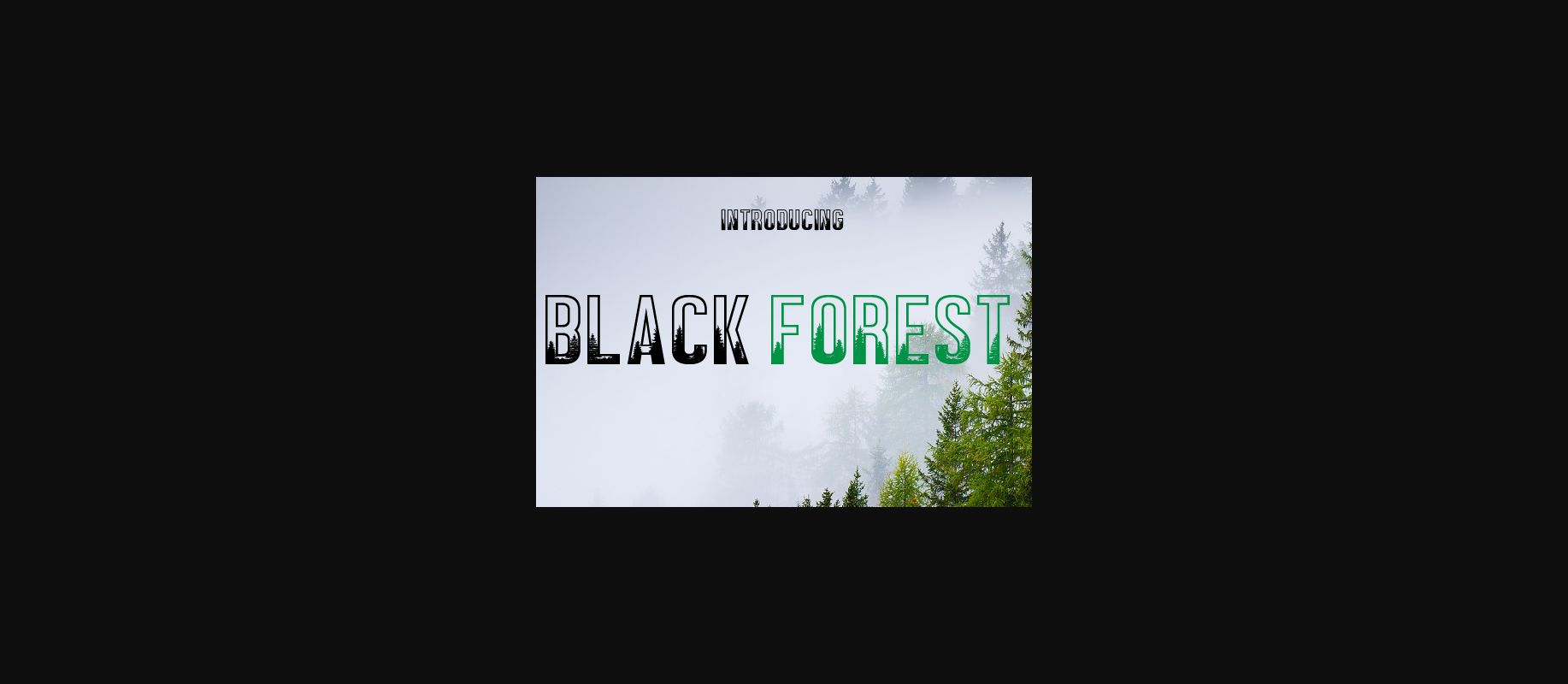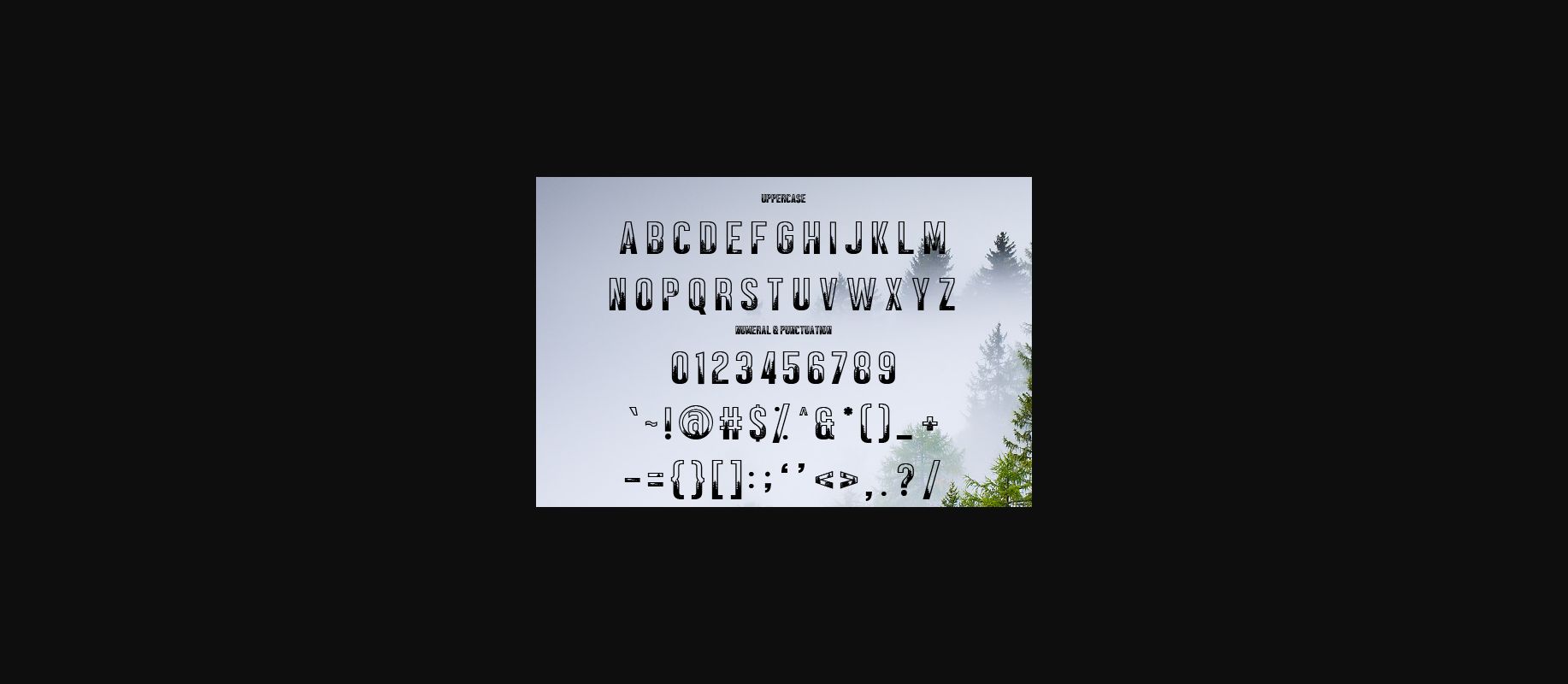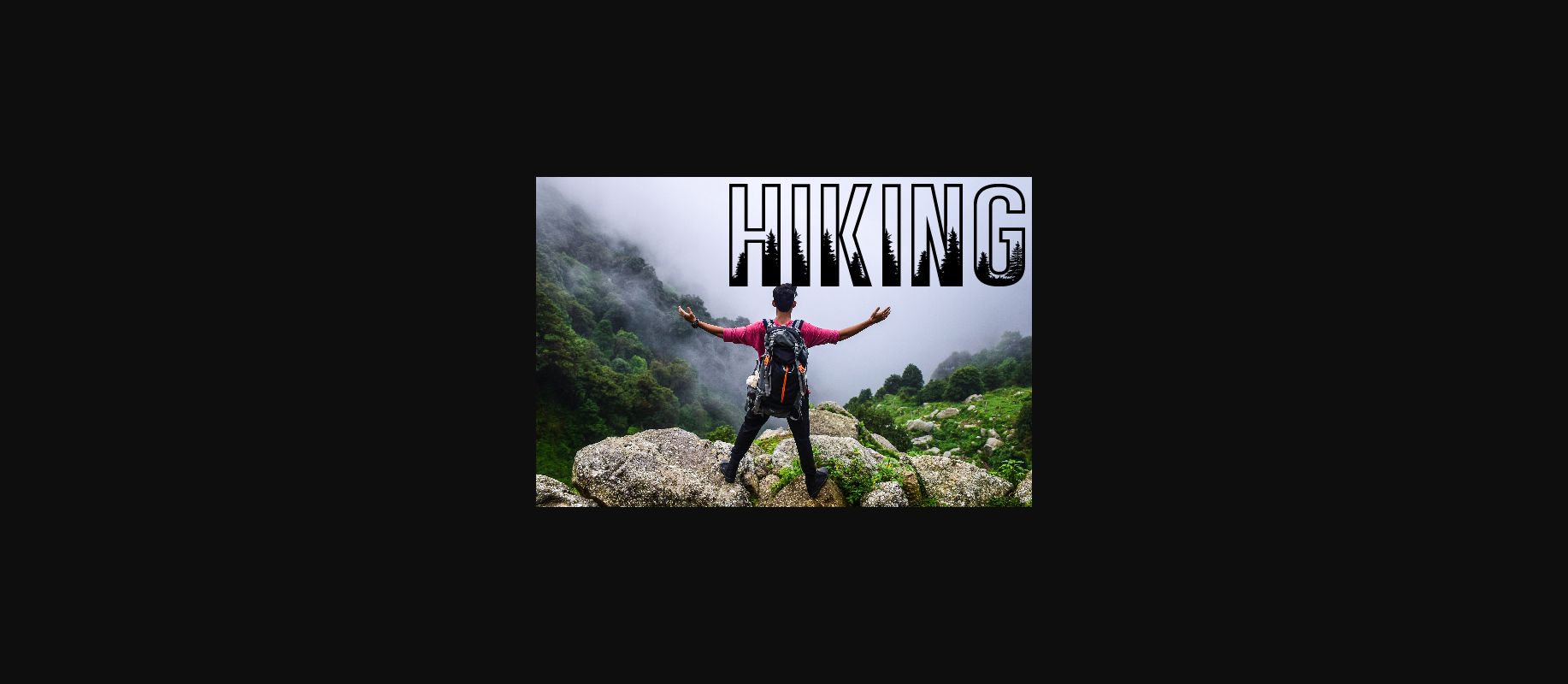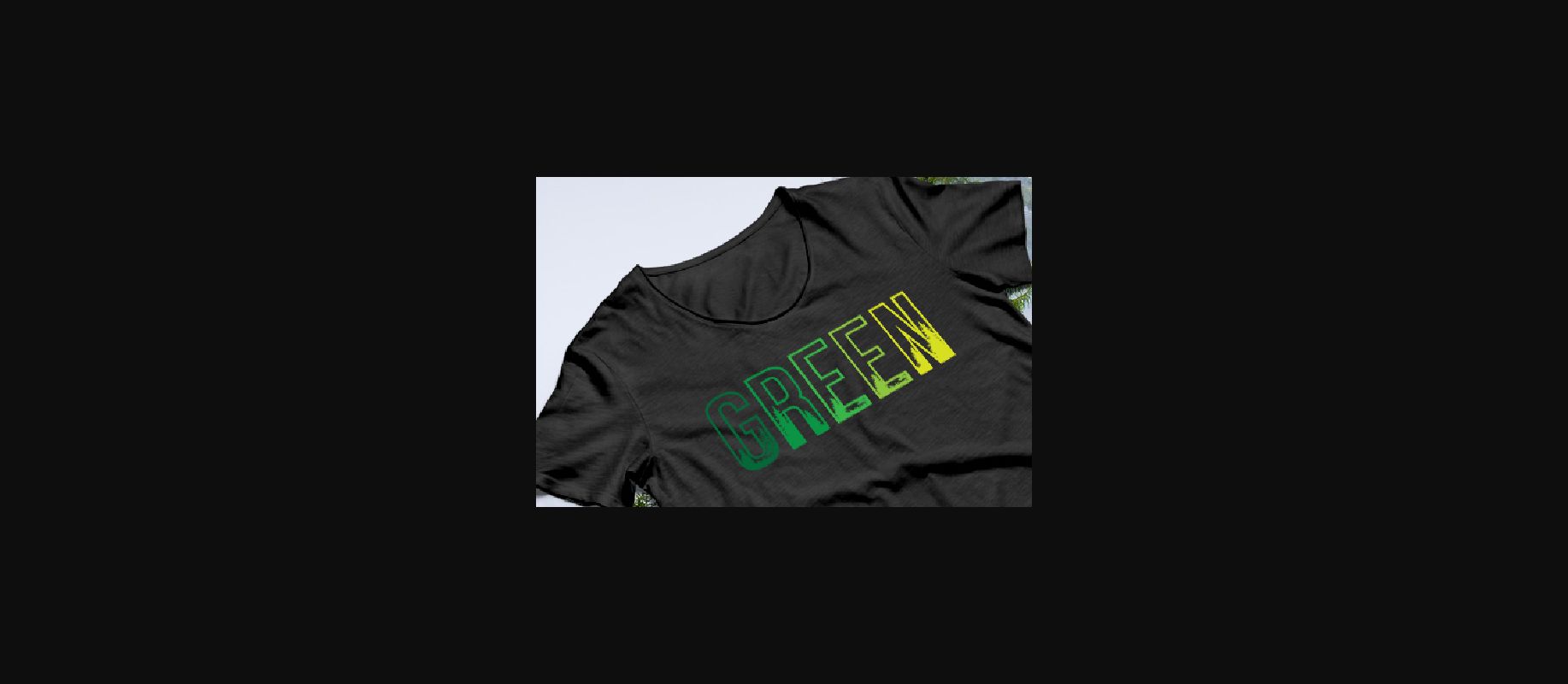
Black Forest Font
About Black Forest Font
The Black Forest is a fresh typeface. Feel the decorative forest characters strengthen your design, and add an unique touch.
It’s perfect for name cards, posters, logos magazines, covers, banners, and large-scale artwork.